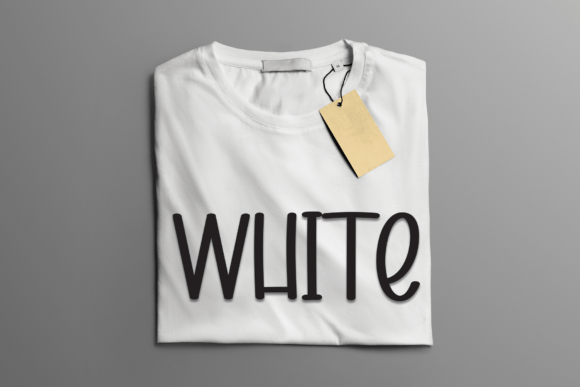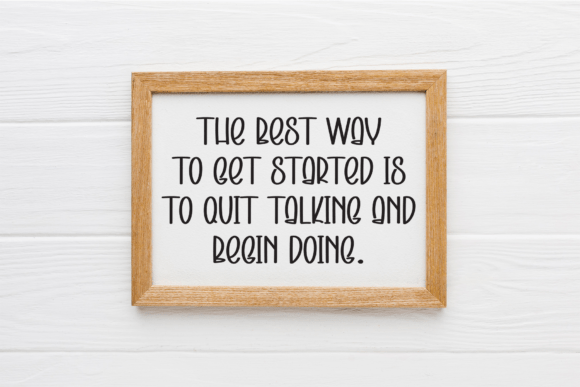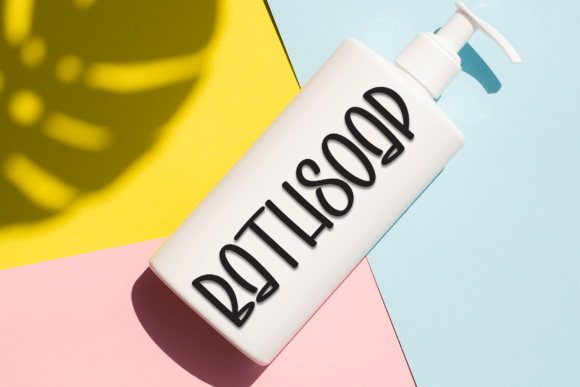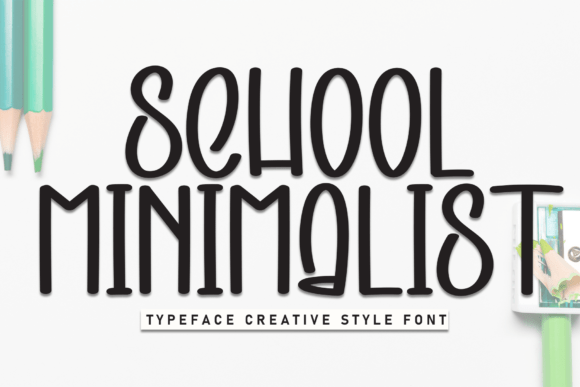
Introduction to School Minimalist Font
School Minimalist is a sweet and friendly handwritten font.
Key Features of School Minimalist Font
Why Choose School Minimalist Font?
School Minimalist Font offers exceptional quality and versatility, making it a valuable addition to your design toolkit. Whether you’re creating for personal projects or commercial use, School Minimalist Font delivers professional results.